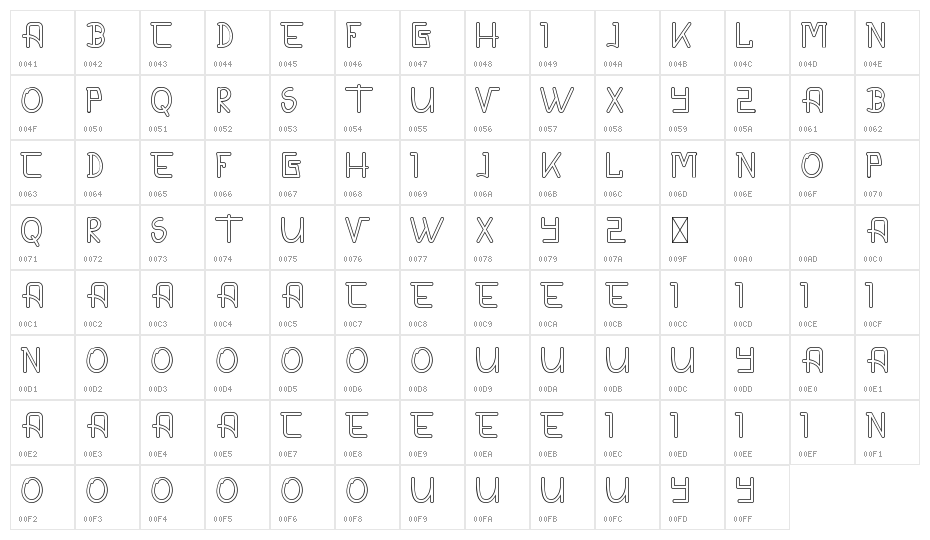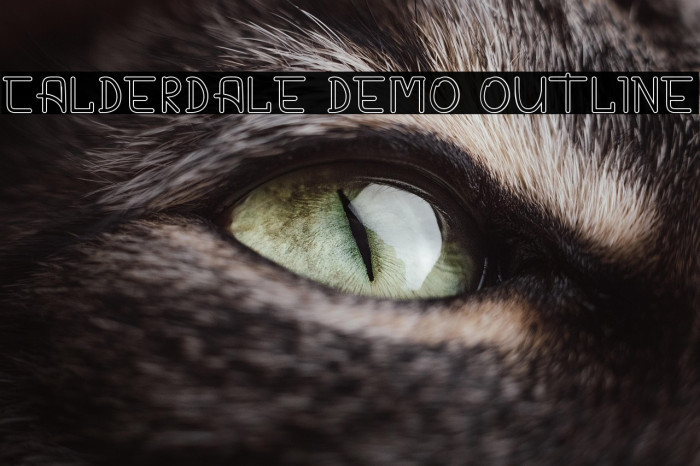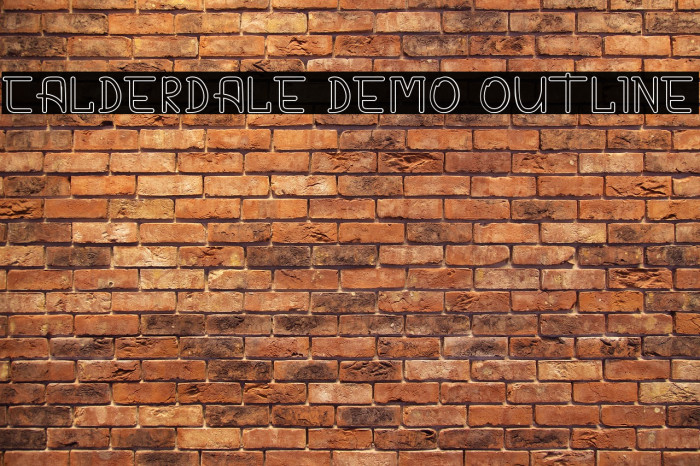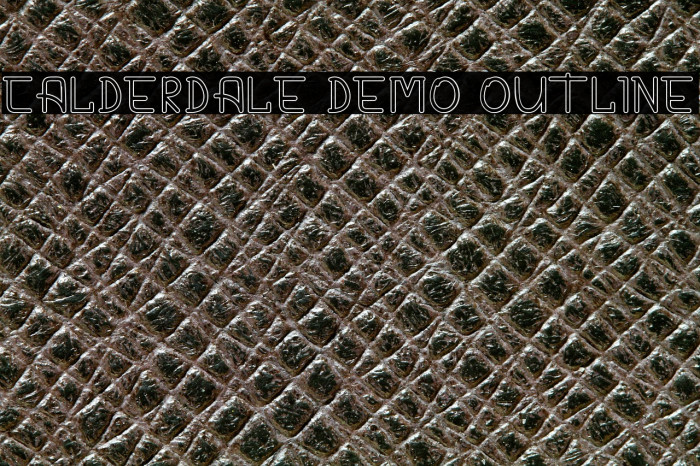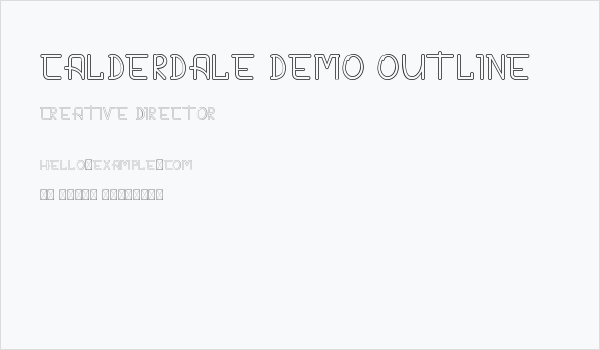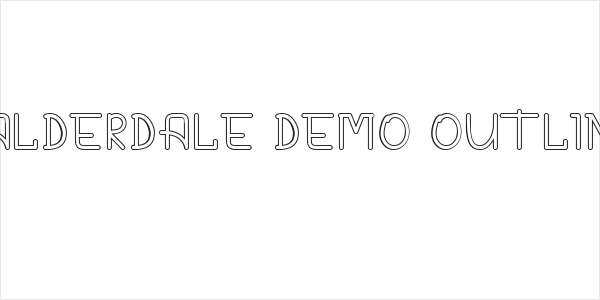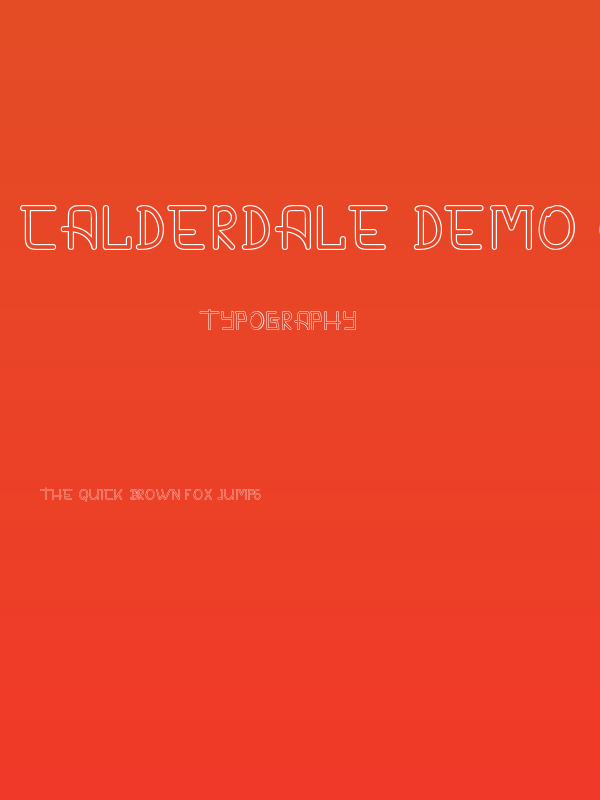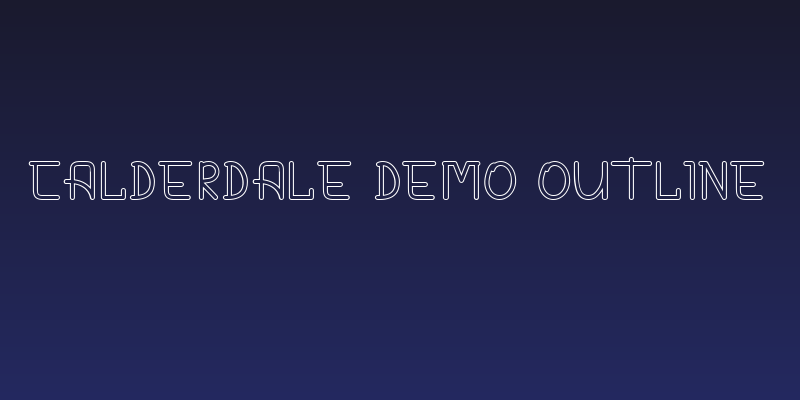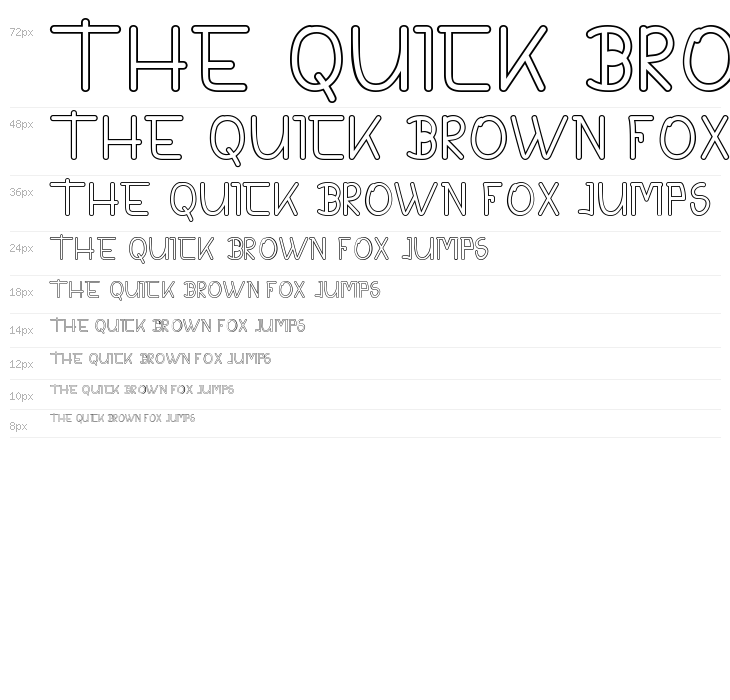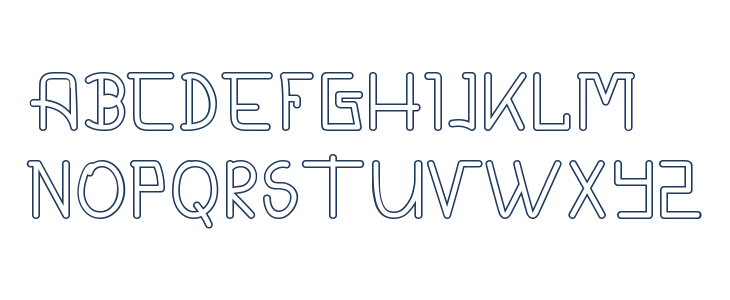
CALDERDALE DEMO Outline Font
CALDERDALE DEMO Outline Description
This font features a unique outline style with geometric shapes and clean lines. Each character is crafted with a consistent stroke width, creating a cohesive and modern appearance. The uppercase letters exhibit a uniform height and width, while the lowercase letters maintain a similar aesthetic, ensuring readability and balance. The numbers and special characters are designed to complement the alphabet, providing a complete and versatile typeface. The overall design is both contemporary and playful, making it suitable for various creative applications.